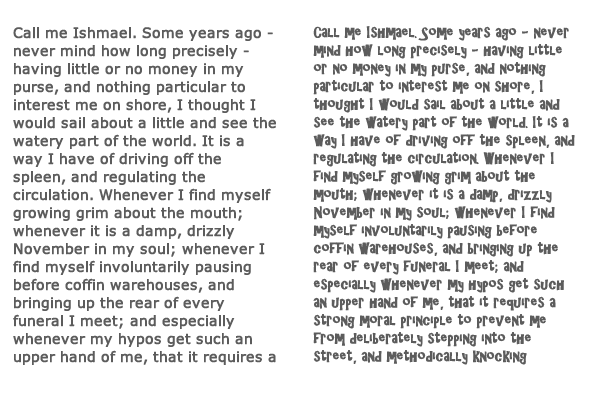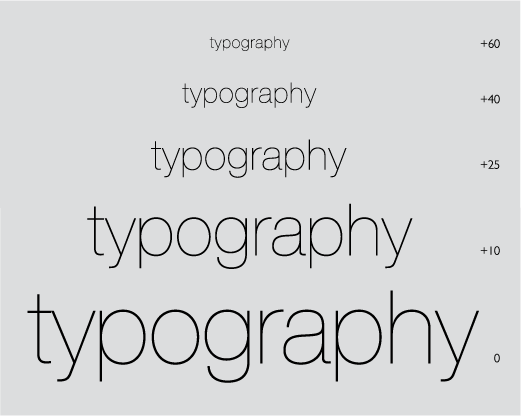
Readability Refers To How You Lay Out Your Selected Font On A Printed Or Website Page.
For example, white space in between letters and lines as well as paragraph breaks and images or offset quotes are all techniques used to make fonts readable. All text should be sized to at least 28 points. Font types have an impact on readability for people with and without dyslexia.
Font Matters For These Readers As Well As For Those Who Experience Further Performance Gains By The Use Of Additional Readability Features.
If you must use a serif font (for example, in a logo), size it to at least 25 points. The special weighting on the bottom of letters combined with inclines on the uprights make the text easier to read. Book print, printer print, computer screen, hand helds, etc.
Legibility And Readability Both Relate To The Ease And Clarity With Which You Read Any Particular Setting Of Type, But They Actually Refer To Two Different Concepts.
Whilst some fonts are available at a cost you. Serifs guide the eye along the line wikipedia and a million other design articles say serifs guide eye movement. Serif fonts have decorative strokes at the end of each letter.
For The Tested Fonts, Sans Serif, Monospaced, And Roman Font Styles Significantly Improved The Reading Performance Over Serif, Proportional, And Italic Fonts.
It tends to create a good design. This issue becomes a list of subproblems. And also, if you consider using serif fonts on your website, make sure the font size is big enough.
Legibility is related to the design of the typeface and the shape of the glyphs, while readability refers to how the font is arranged, or typeset. Click to find the best 54 free fonts in the readable style. Although they may look odd at first dyslexic fonts soon become normal and help to increase readability.